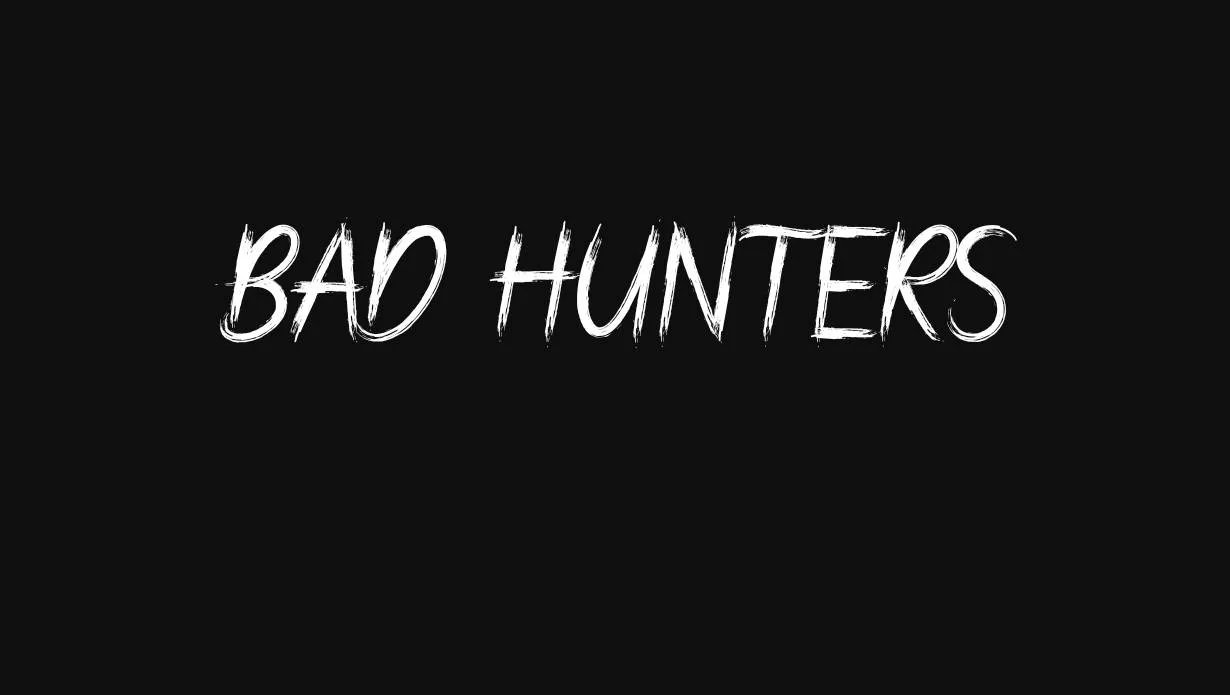
Bad Hunters Font exudes a strong and rugged style, making it suitable for adventure-themed designs, outdoor posters, and bold branding. It typically supports file formats like TTF and OTF, ensuring compatibility across various design applications.
This font’s rugged and forceful appearance adds an adventurous and robust element to any design it’s applied to. Bad Hunters Font lends a bold and daring vibe, perfect for projects seeking a touch of wilderness and ruggedness.